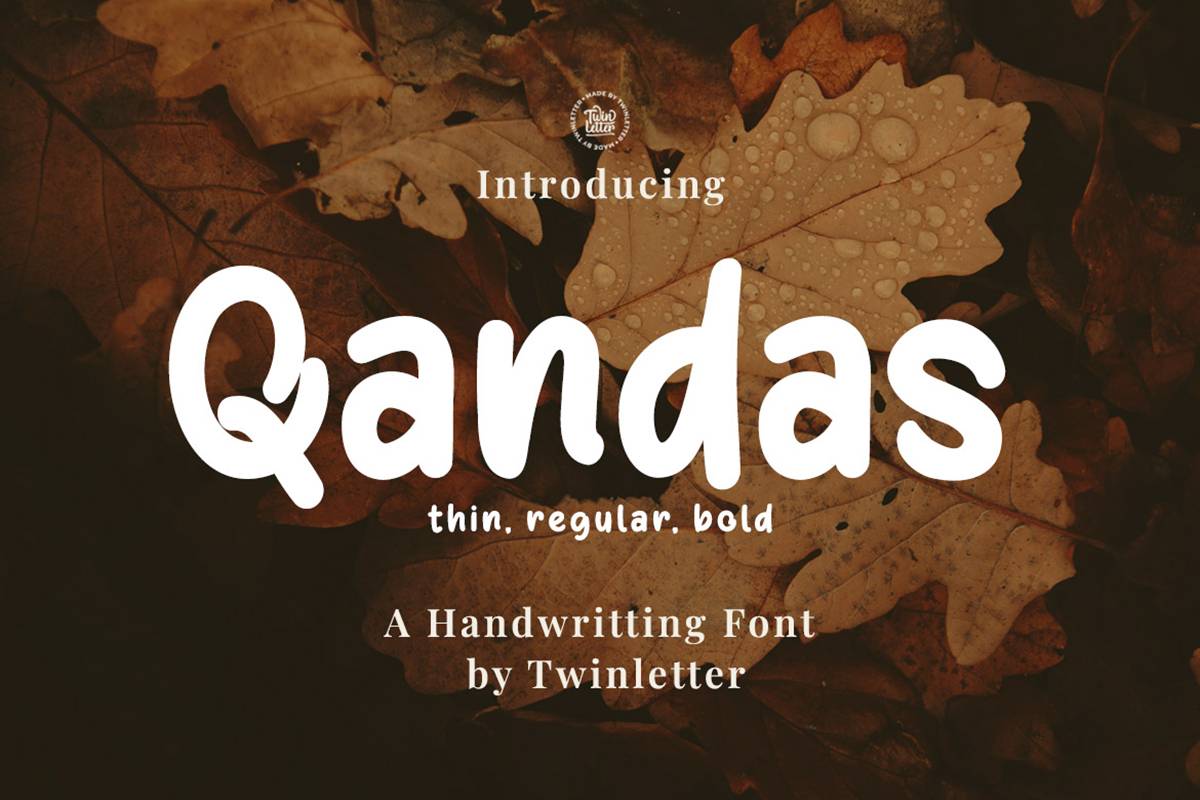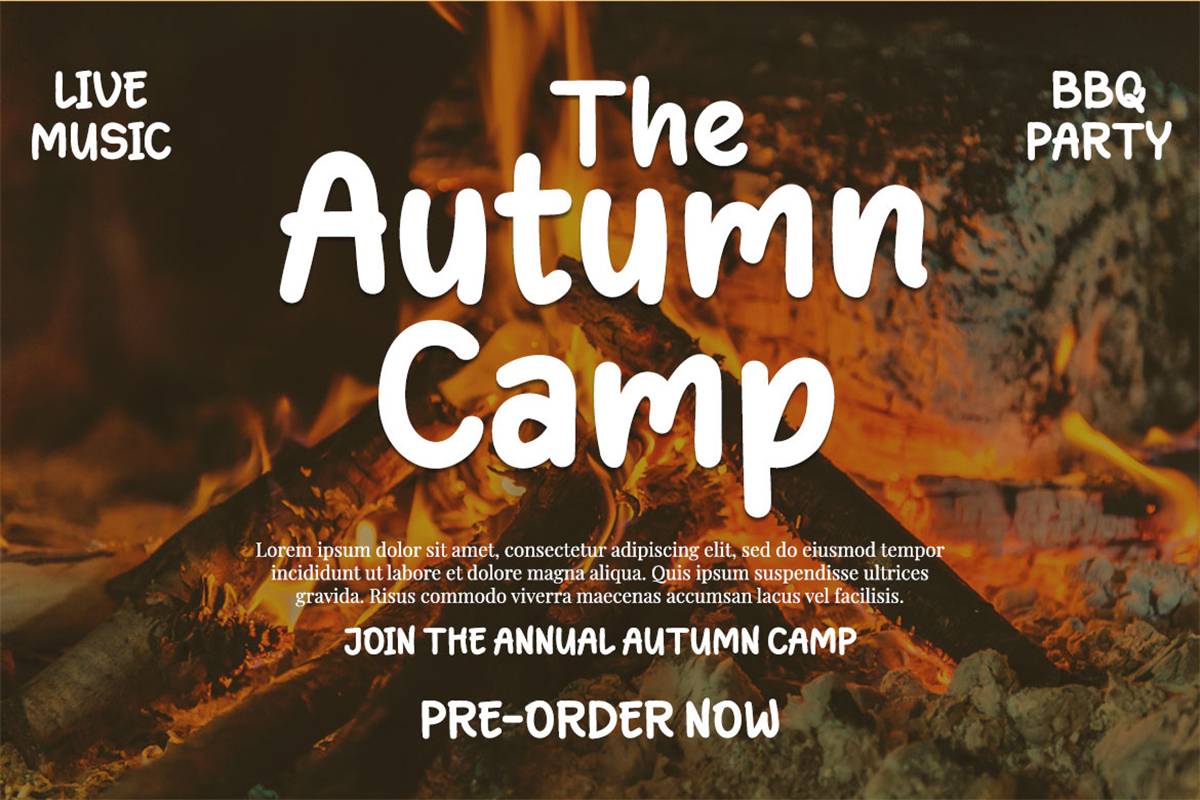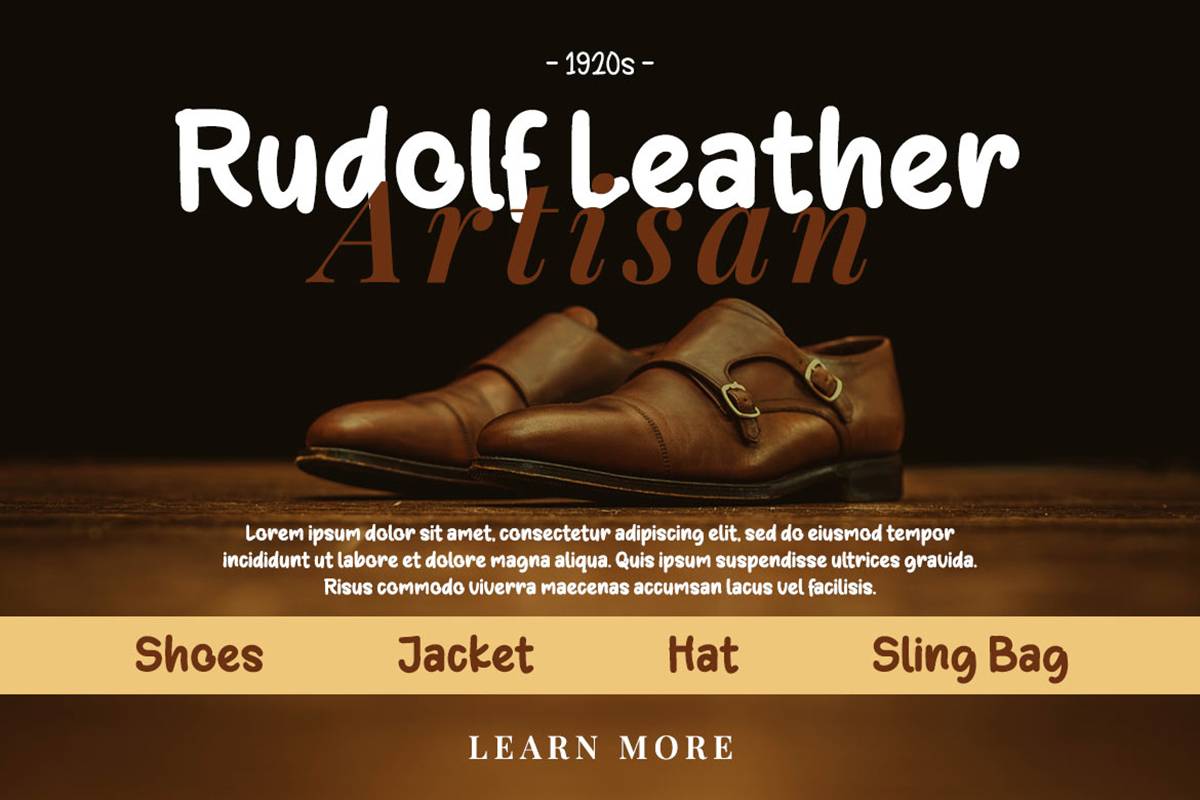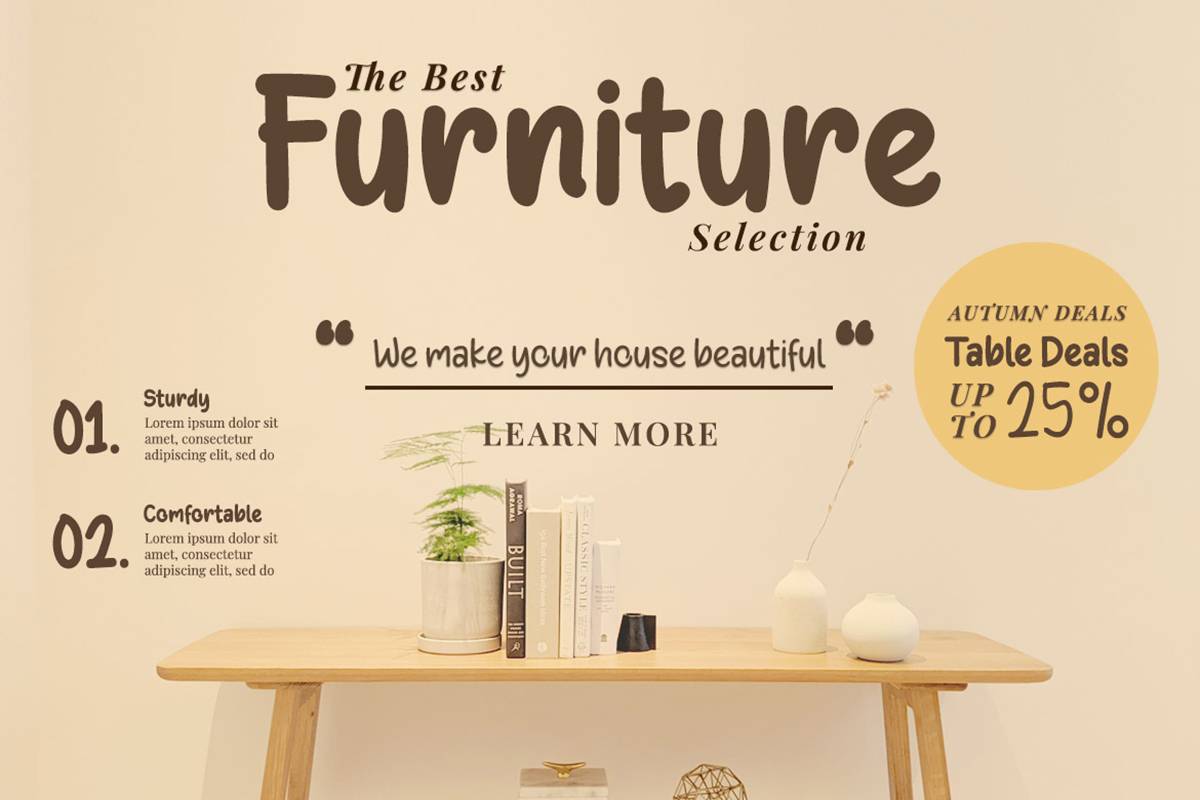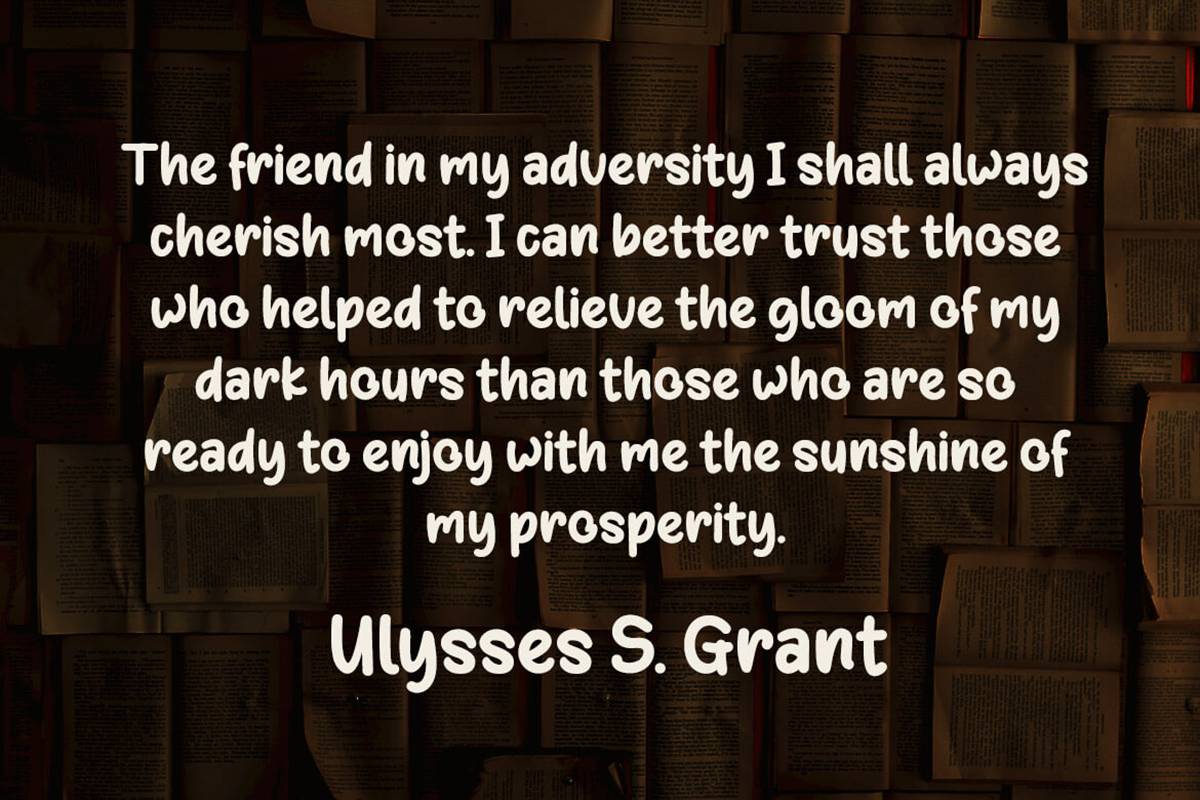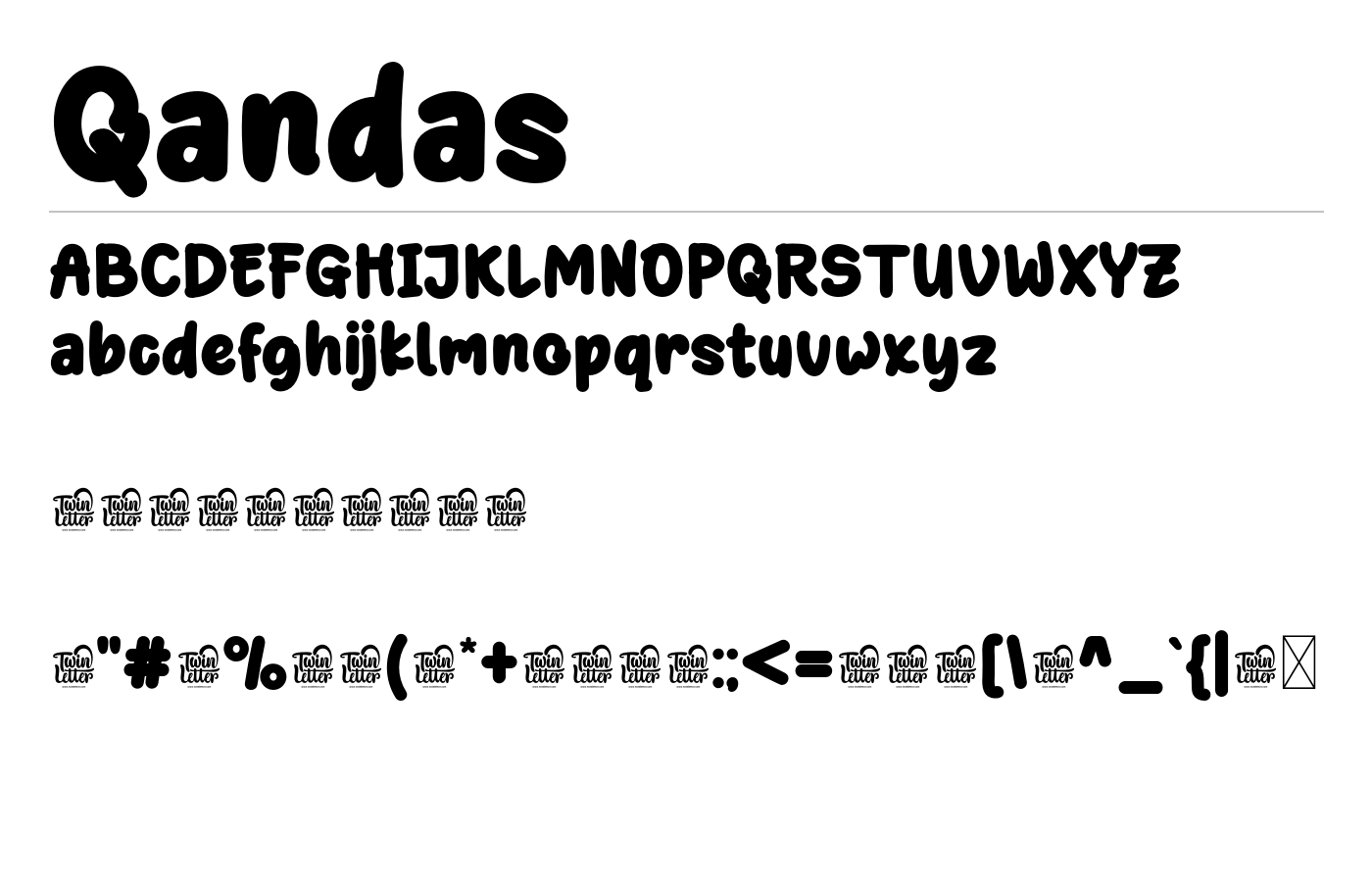
Qandas is a bold, rounded sans serif font with a playful and friendly character, featuring thick, soft strokes and a casual, hand-drawn style. Its whimsical letterforms and generous curves make it ideal for fun, informal designs such as children's books, logos, and posters that aim to evoke warmth and approachability. This font works best in headlines and display settings where a lively, engaging tone is desired.
Qandas Font
About Qandas Font
| Font family | Qandas Font |